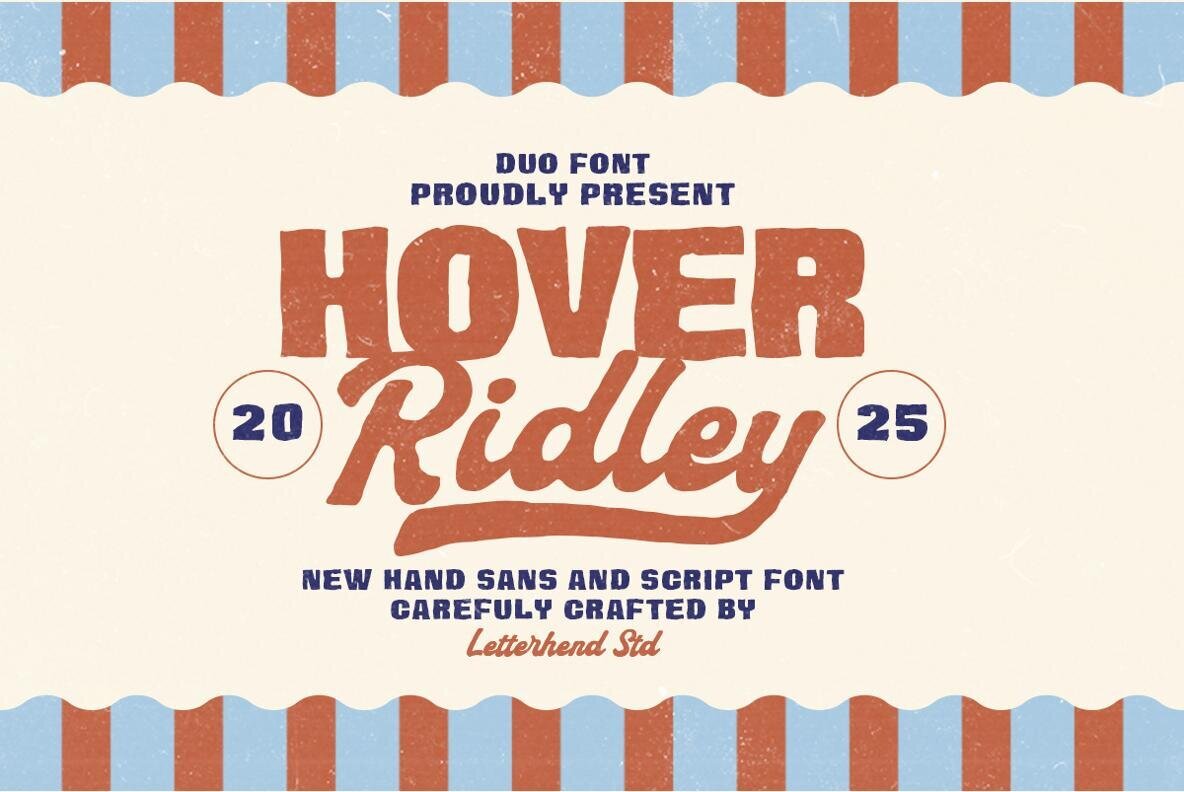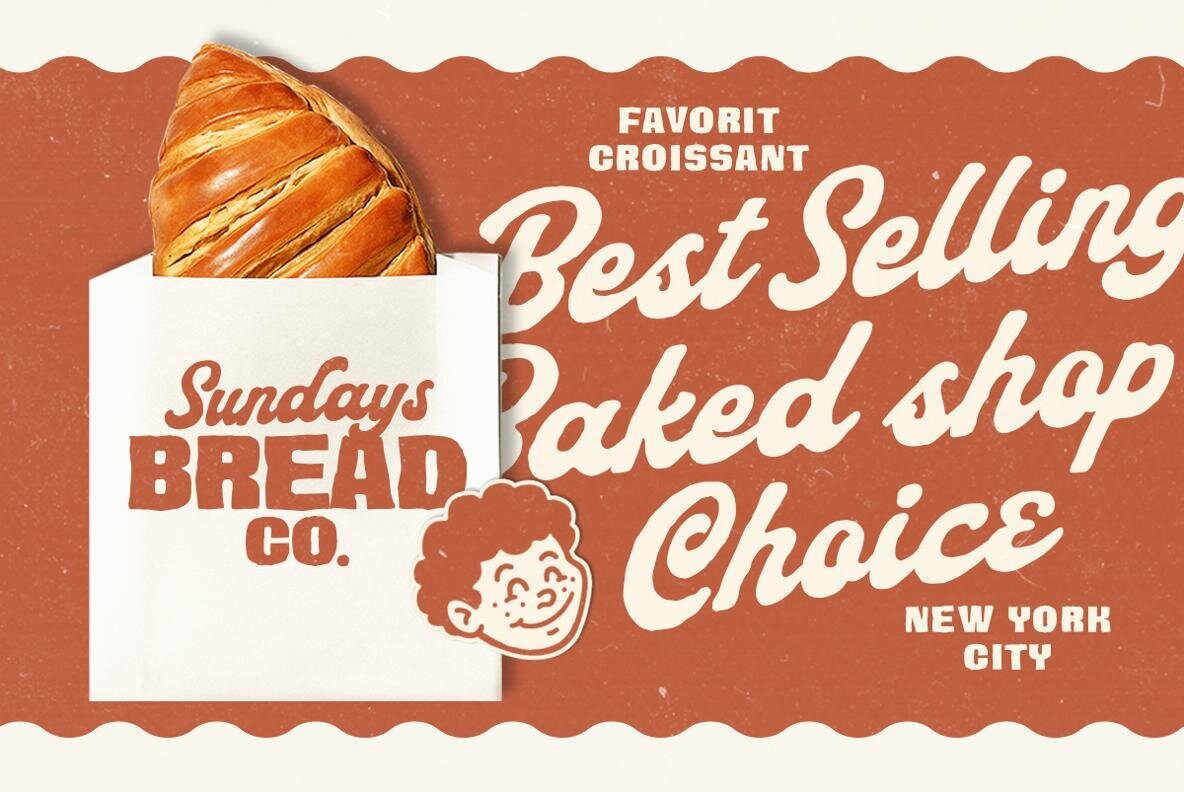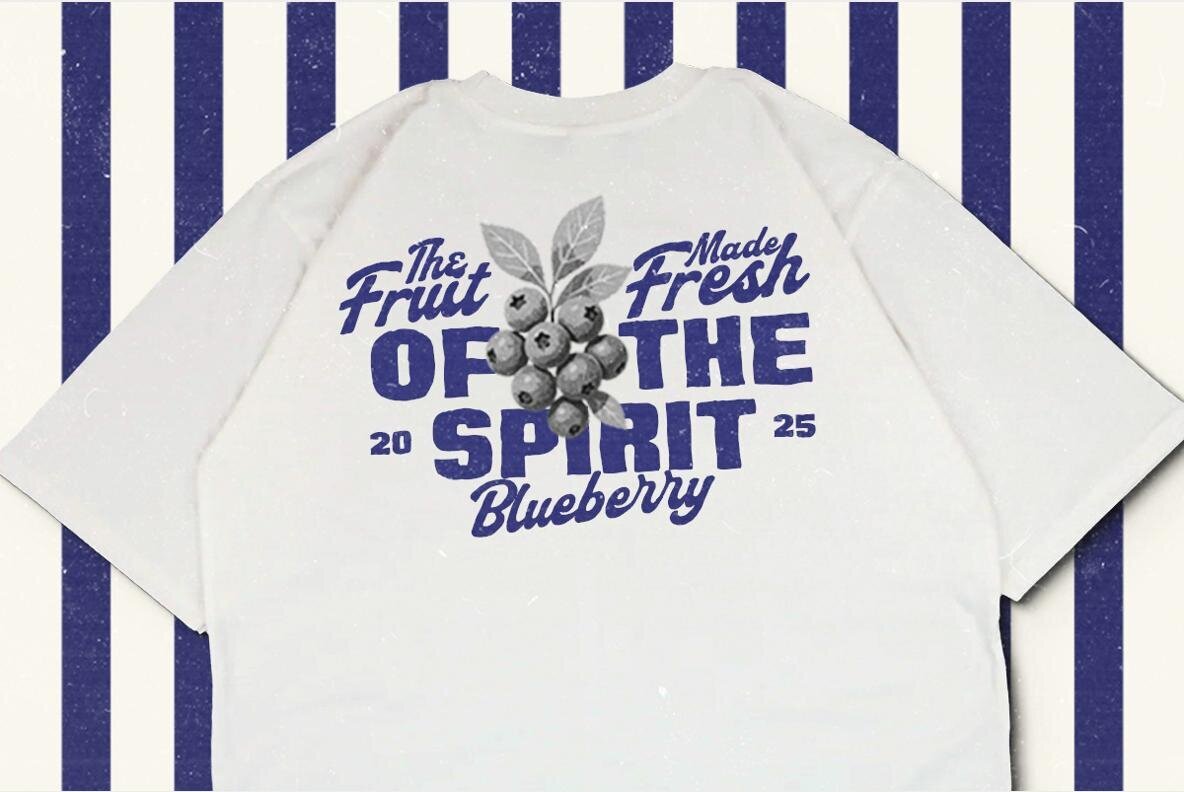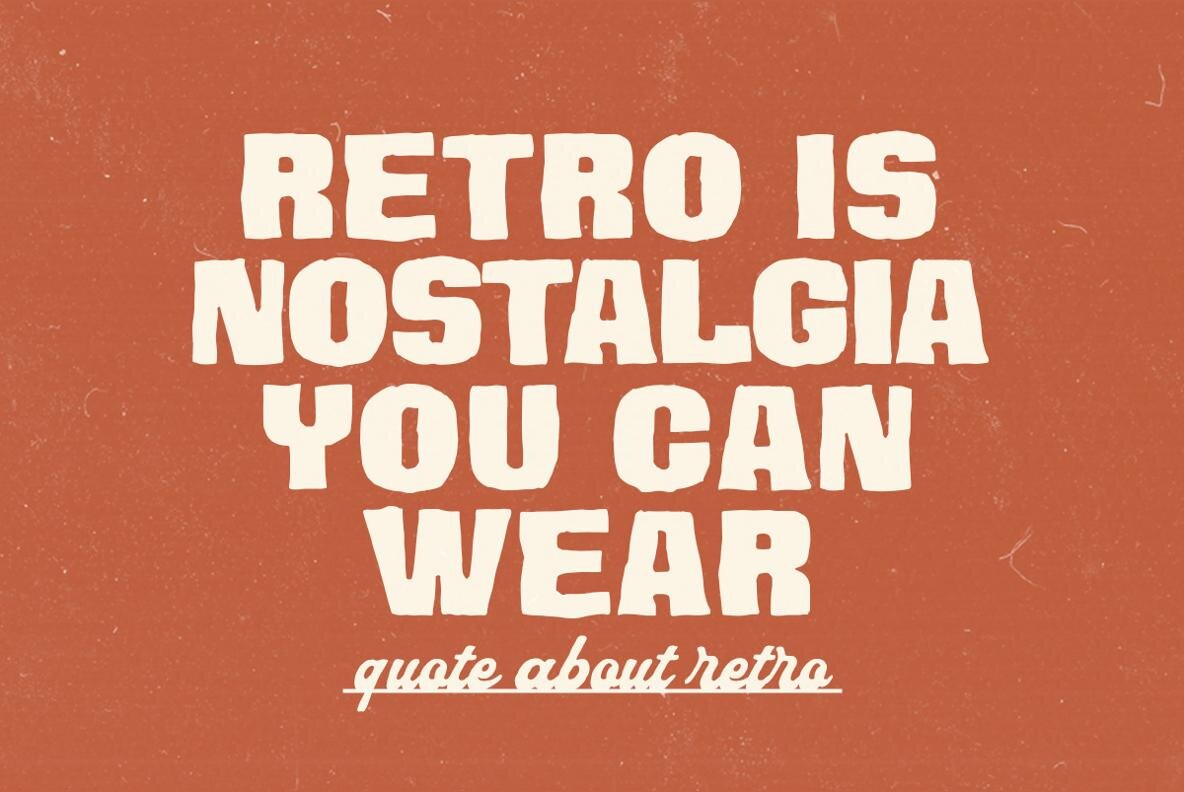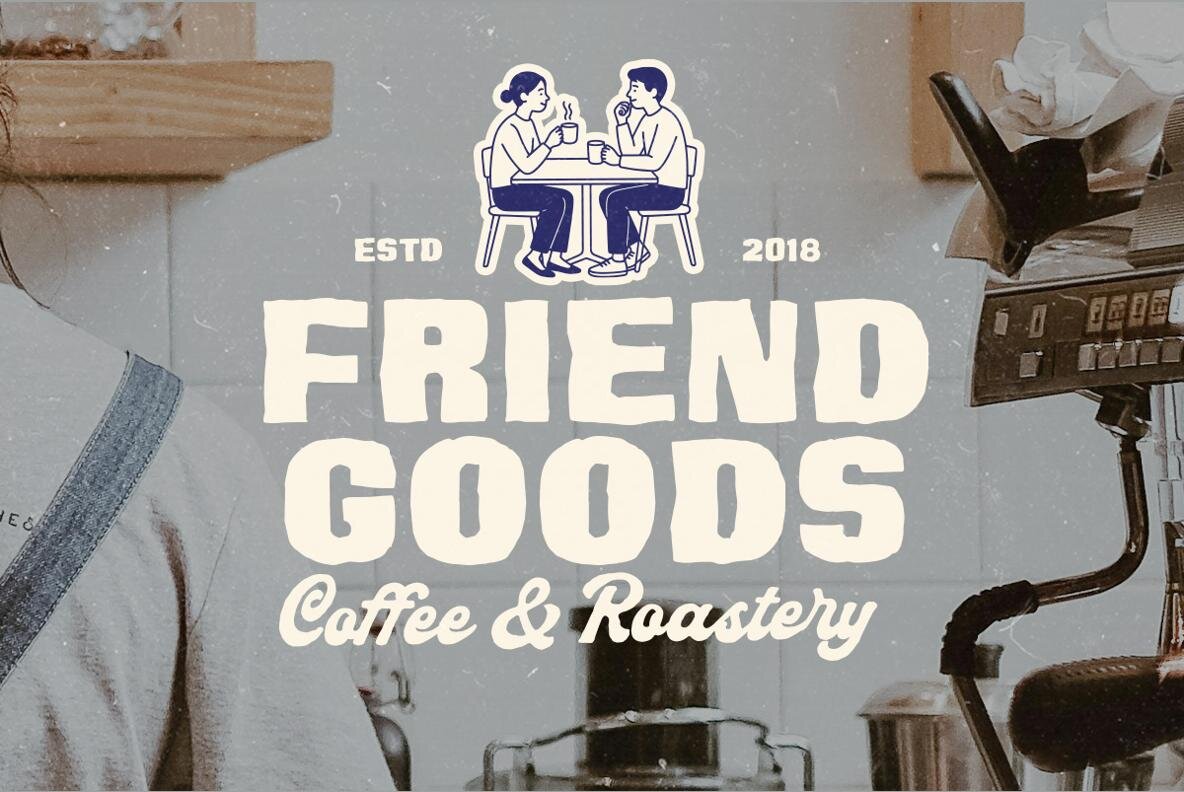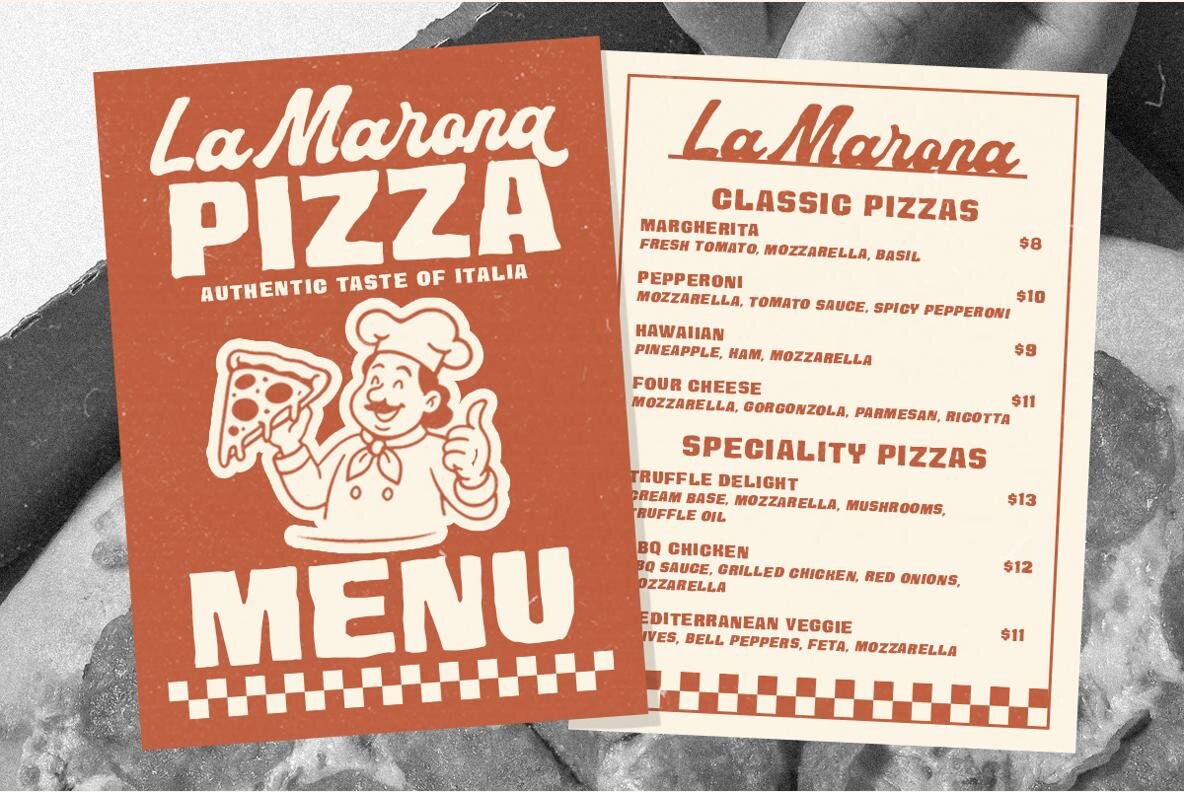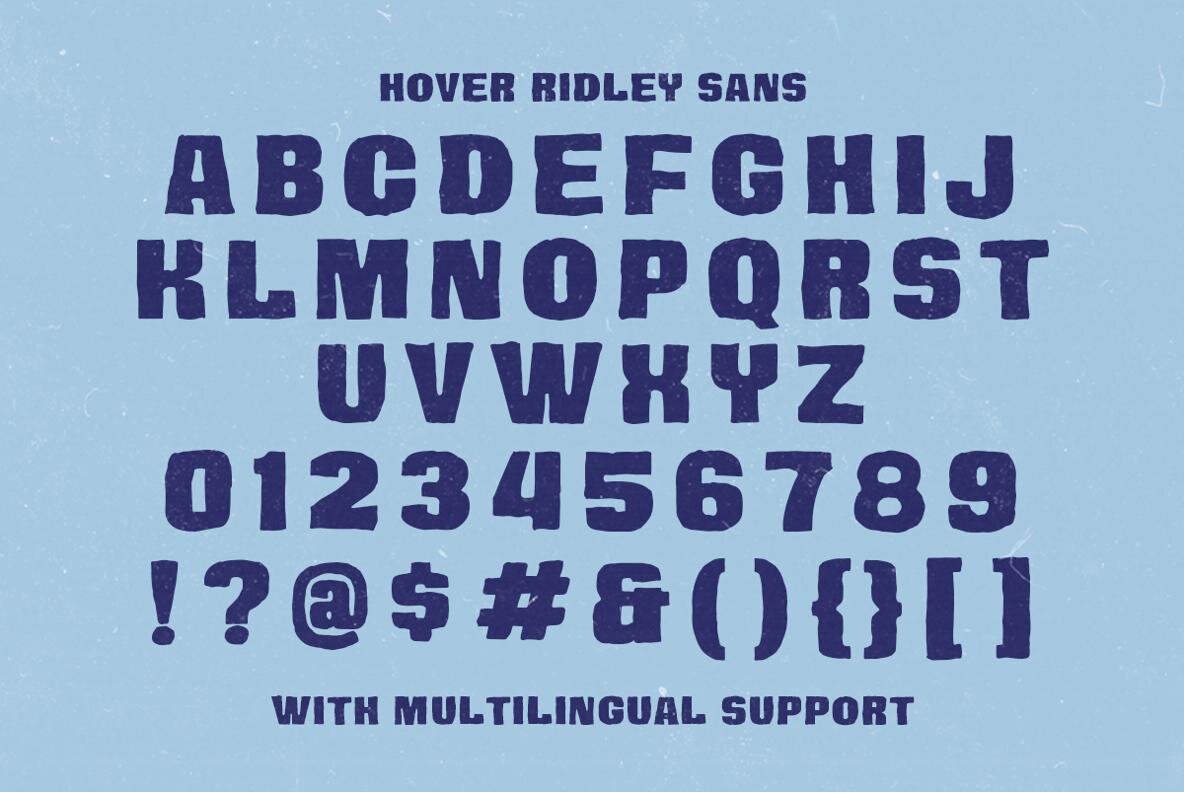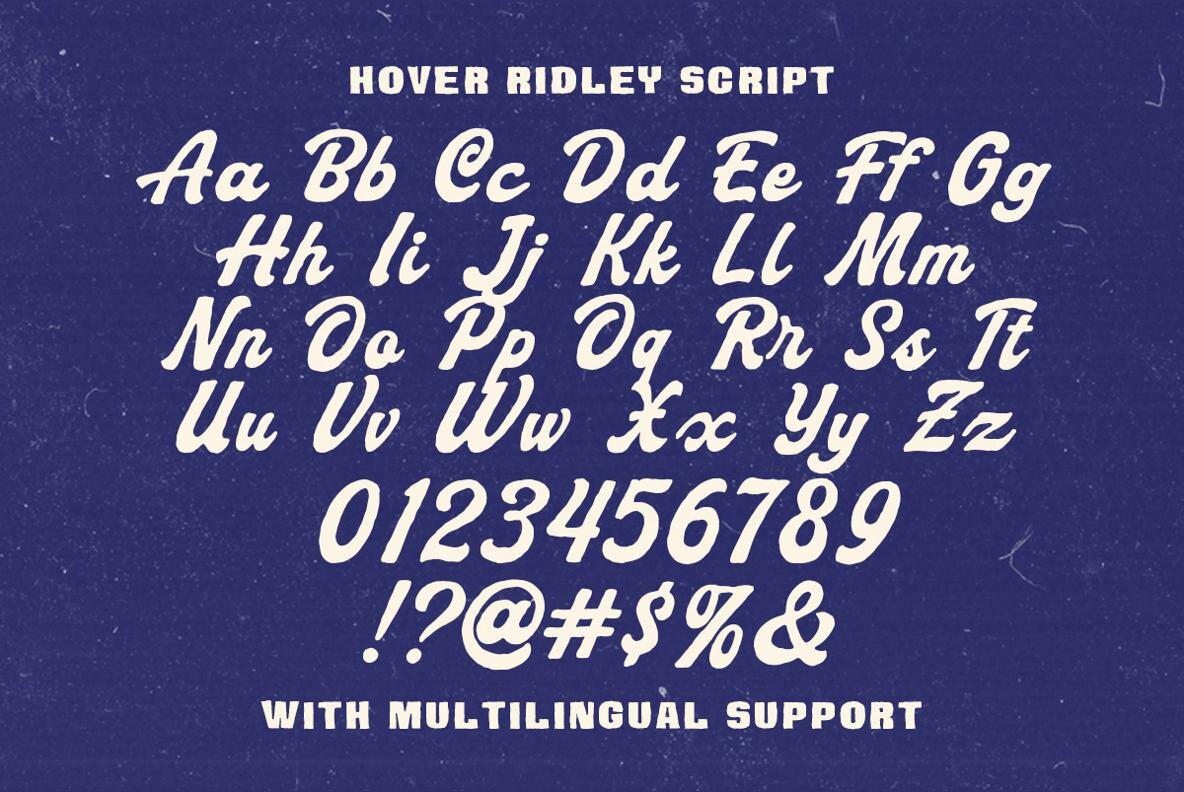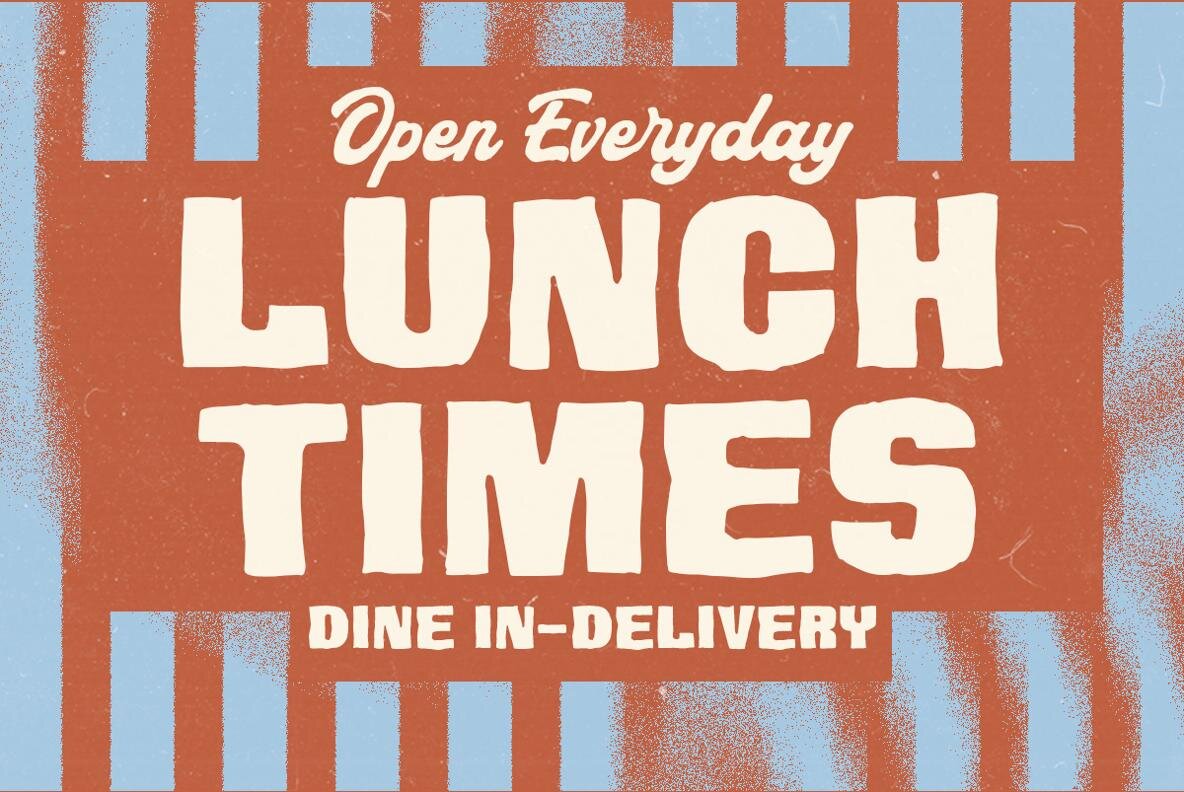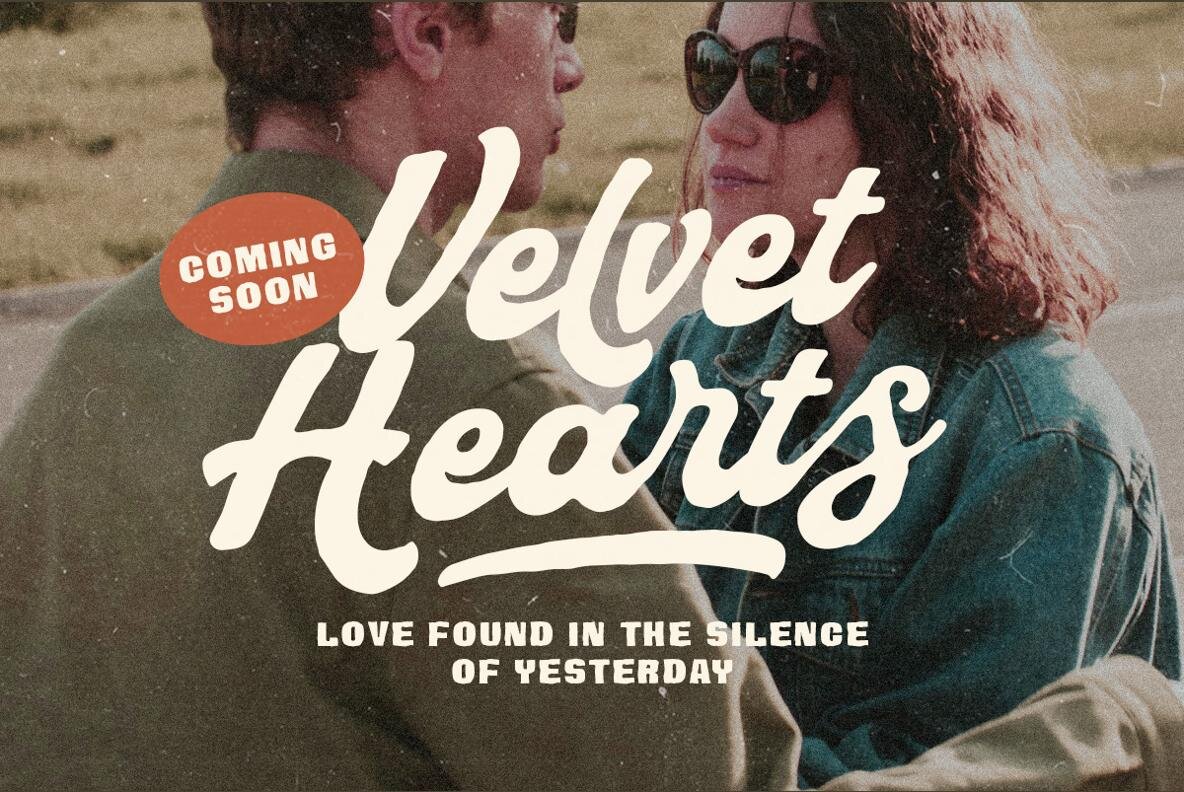
Hover Ridley Font
Hover Ridley is a bold hand-drawn font duo that artfully marries a chunky sans with a smooth script, evoking feelings of nostalgia and cheer. Its rustic texture combined with retro curves conjures images of vintage fairgrounds and classic signage, making it ideal for logos, posters, packaging, or any design project that requires a touch of handcrafted adventure. The harmonious balance between the sturdy sans and the flowing script offers layouts a dynamic, friendly energy—capturing a timeless and approachable essence.Hover Ridley: A Nostalgic Hand-Drawn Duo